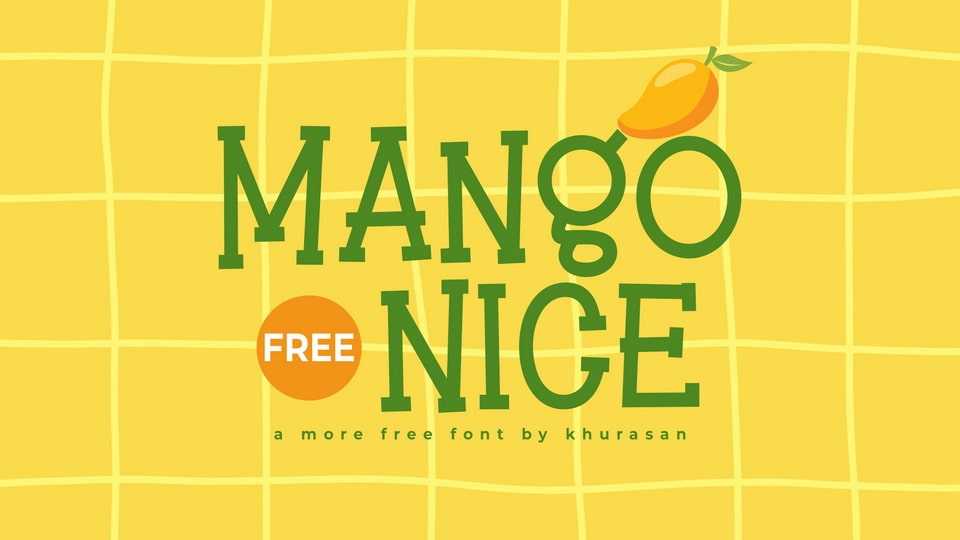
Download Mango Nice font, a quirky and playful hand-drawn cartoon typeface bursting with personality and charm. Its lively, imperfect strokes and bouncy letterforms.